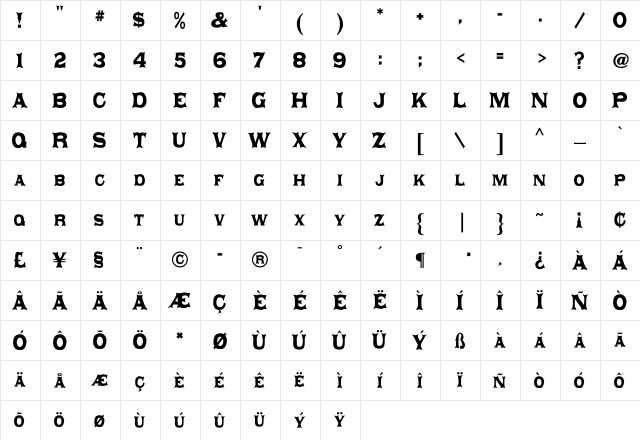
LHF Amarillo Regular
| Foundry | Chuck Davis for Letterhead Fonts |
| Designer | Chuck Davis for Letterhead Fonts |
Design Context for LHF Amarillo Typeface
LHF Amarillo takes a measured approach to typography — its balanced proportions and neutral character make it a reliable workhorse for both digital and print work.